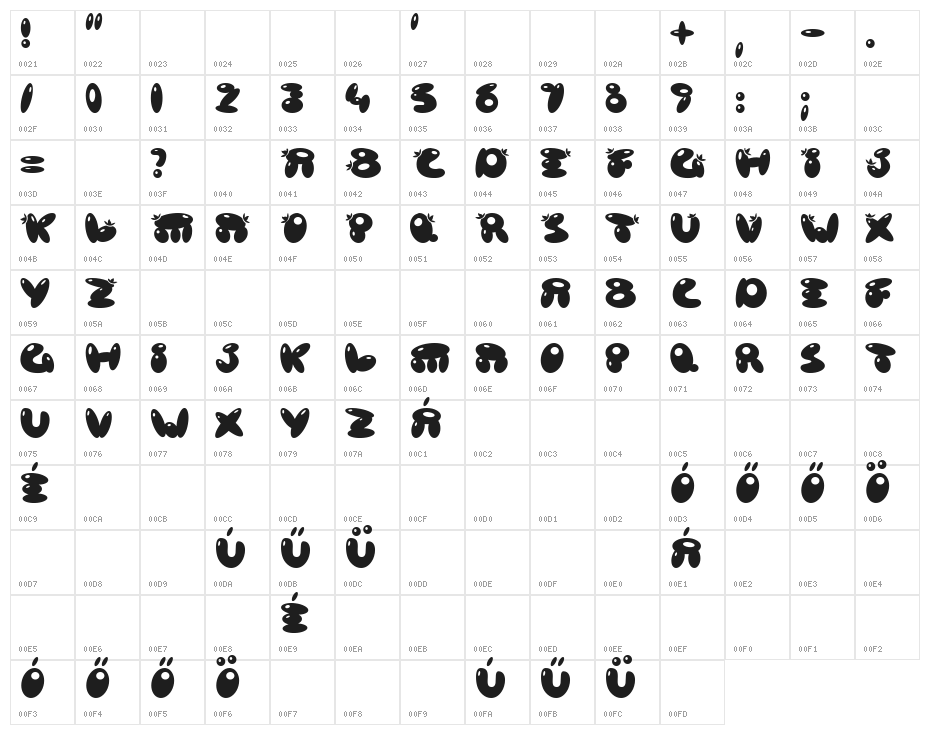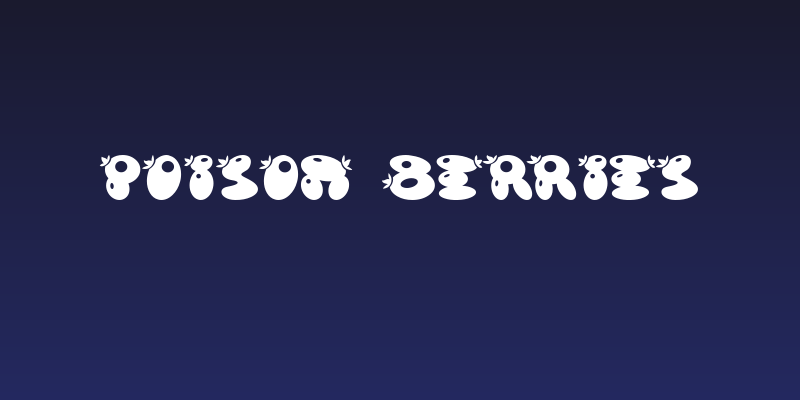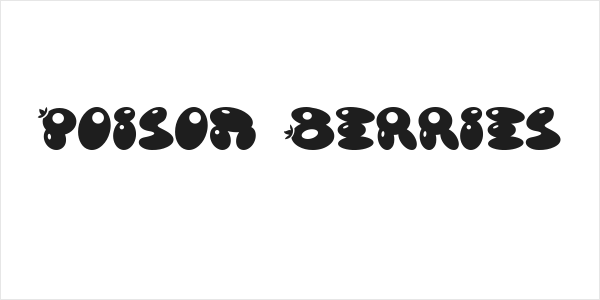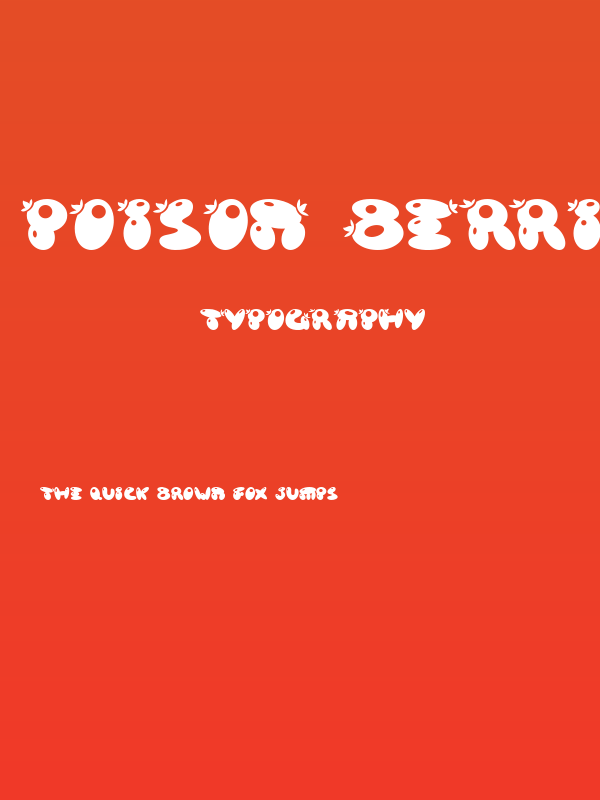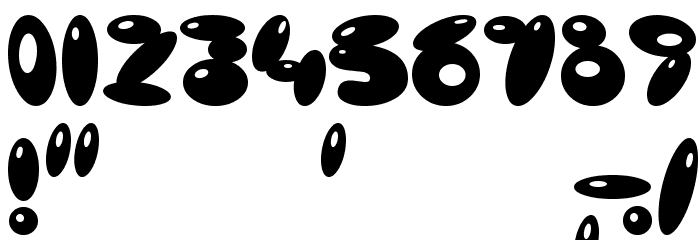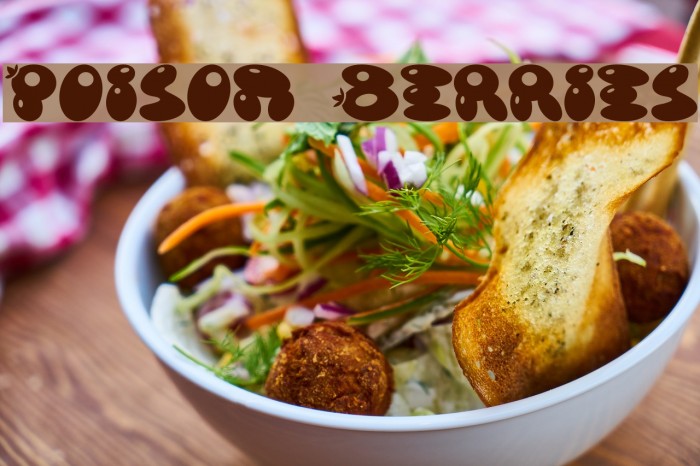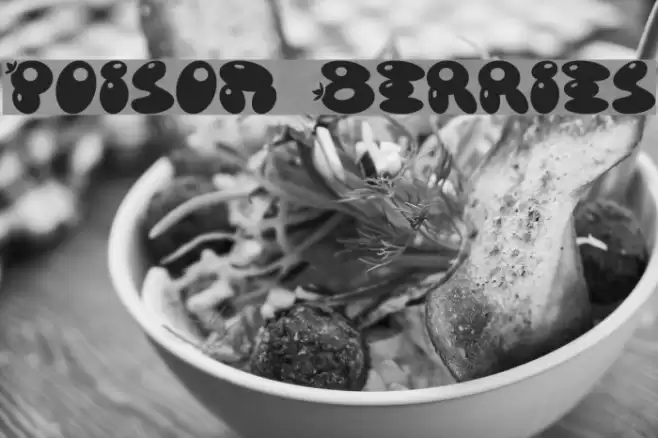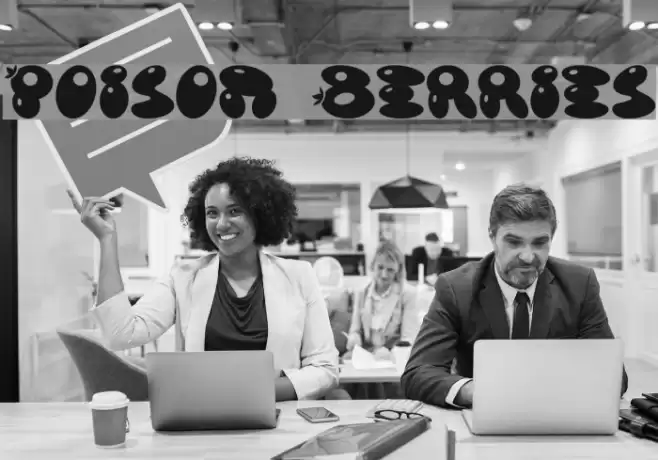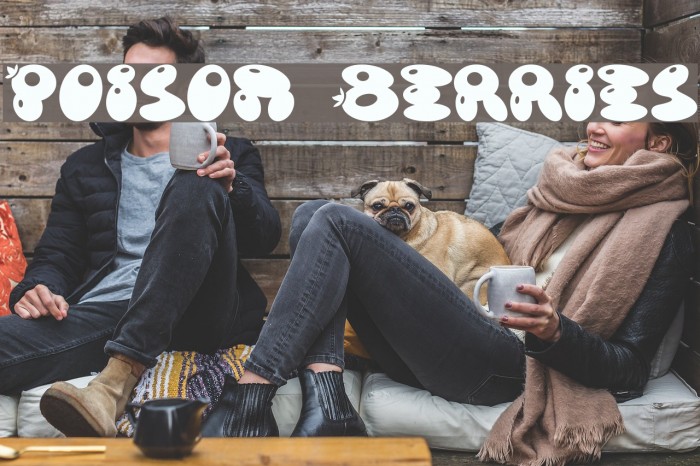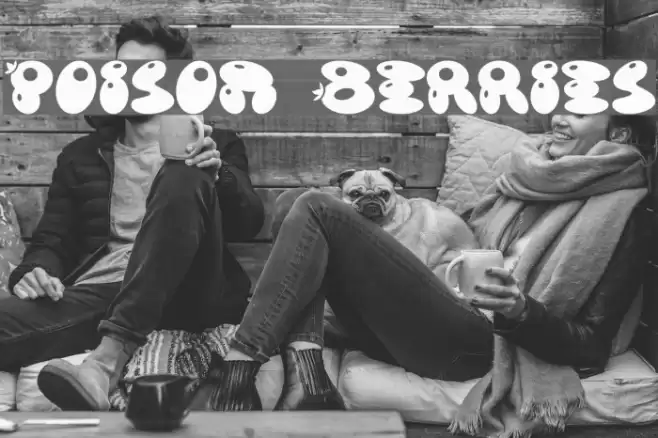
Poison Berries Font
| Breite | Expanded |
| Gesamtstil | Playful, Whimsical |
| Vorgeschlagene Projekte | Ideal for children's book covers, playful branding, party invitations, and creative posters. |